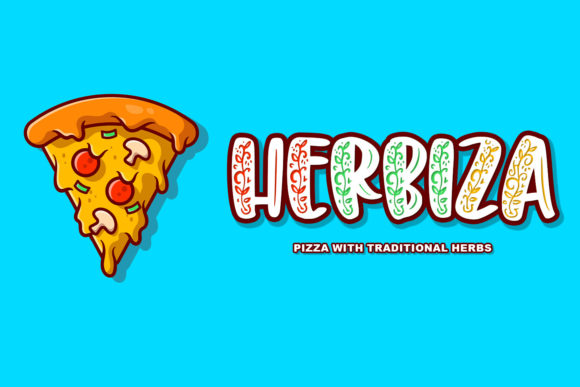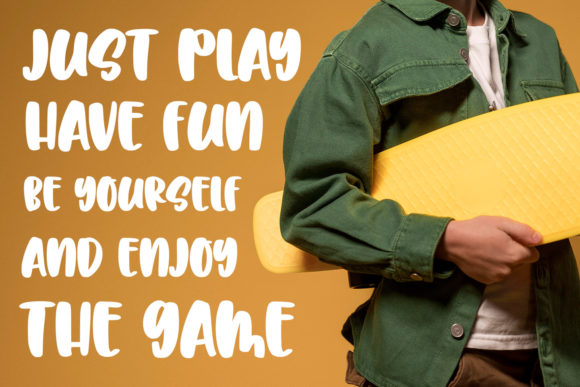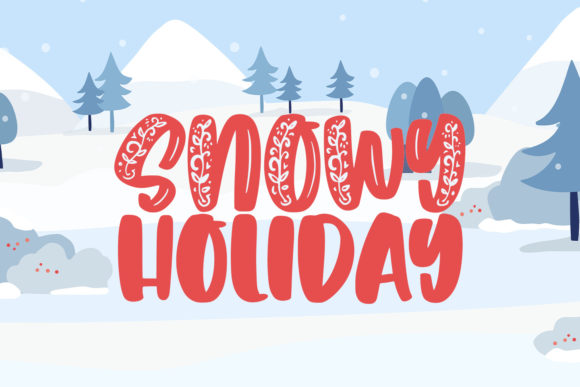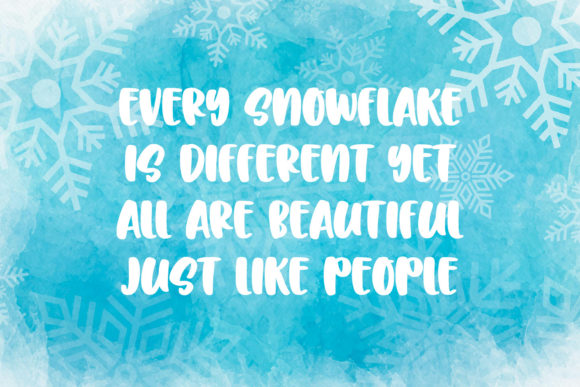
Adding a Touch of Joy to Your Creations
Have you ever stared at a blank canvas, eager to bring a new idea to life? The thrill of creating something from scratch is exhilarating, but it’s often the little details that make all the difference. That’s where the perfect font comes in – a font that can elevate your design and make it truly special.
Enter the Artmy Font, a lovely, fresh, and unique duo font that’s perfect for adding a touch of joy to your creations. Whether you’re working on cartoon-related designs, children’s games, or simply want to add a playful twist to your quotes, titles, or brand names, this font is a great choice. With its versatility and charm, Artmy Font is a valuable asset for designers looking to add a little magic to their work.
Artmy Font Key Features
- Unique Characteristic: Artmy Font features a unique blend of modern and vintage elements, with intricate details and flourishes
- Font Style: Available in 6 weights (Light, Thin, Regular, Medium, Bold, Black) and 3 styles (Script, Casual, Formal)
Designer Review: Artmy Font
Overall, I’m quite impressed with the Artmy Font, but as with any font, it’s not perfect. Here’s my honest take:
- The Artmy Font has a unique, hand-painted aesthetic that adds a touch of elegance to any design. Its subtle imperfections give it a human touch that’s hard to replicate with more traditional fonts.
- The font is highly legible, even at smaller sizes, making it a great choice for body text or headlines.
- The Artmy Font is highly customizable, with a wide range of weights and styles available, making it easy to match with different design themes.
- The font may be too ornate for some designs, making it difficult to read in certain contexts.
- The Artmy Font lacks a clear, consistent naming convention, making it difficult to find the exact weight or style you need.
- The font may not be as versatile as some other fonts on the market, limiting its use in certain design applications.
Overall, the Artmy Font is a beautiful, unique addition to any designer’s toolkit. While it may have some limitations, its strengths make it a great choice for designs that need a touch of sophistication and elegance.
For optimal results, use Artmy Font in conjunction with bold or italic styles to add emphasis.
Use it sparingly to create visual interest and avoid overusing it.
Experiment with different font sizes and colors to create a unique look.
Artmy Font is ideal for:
– Creative projects, such as invitations and posters.
– Digital art and illustrations.
– Branding and marketing materials, such as logos and business cards.
Alternatives to Artmy Font
Great Vibes Font is a beautiful, elegant script font perfect for creating a romantic and vintage feel in your designs. It’s ideal for use in wedding invitations, greeting cards, and other projects that require a touch of sophistication.
Compared to Artmy Font, Great Vibes Font has a more refined and polished look, making it suitable for high-end projects. However, Artmy Font has a more playful and whimsical feel that can be perfect for younger audiences.
Pacifico Font is a modern and stylish script font that’s great for creating a relaxed and beachy vibe in your designs. It’s ideal for use in travel brochures, restaurant menus, and other projects that require a casual and approachable feel.
Compared to Artmy Font, Pacifico Font has a more laid-back and effortless look, making it perfect for projects that require a carefree and spontaneous feel. However, Artmy Font has a more versatile and adaptable design that can be used in a wide range of projects.
Dancing Script Font is a beautiful and elegant script font that’s perfect for creating a luxurious and sophisticated feel in your designs. It’s ideal for use in high-end projects such as luxury branding, fashion designs, and other projects that require a touch of glamour.